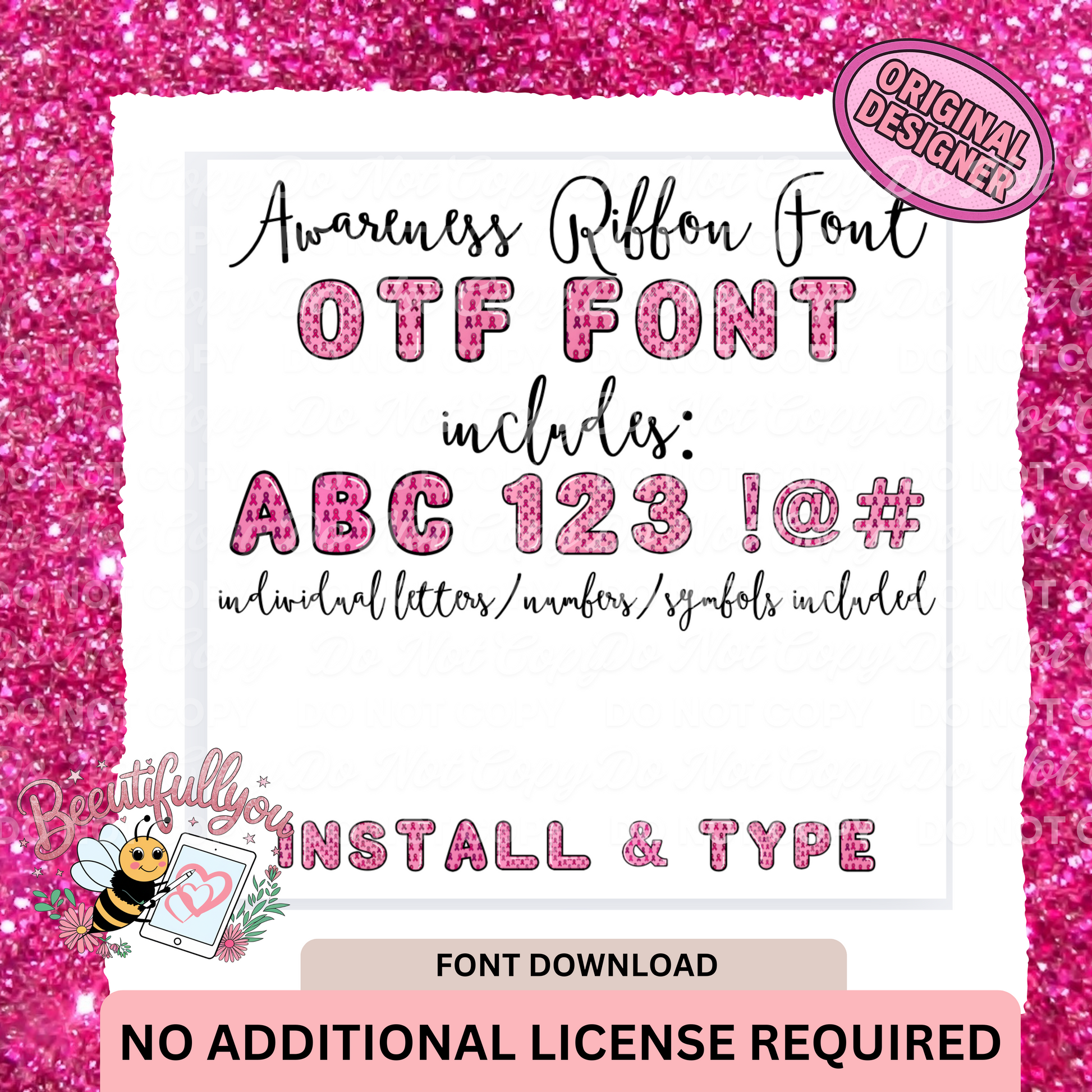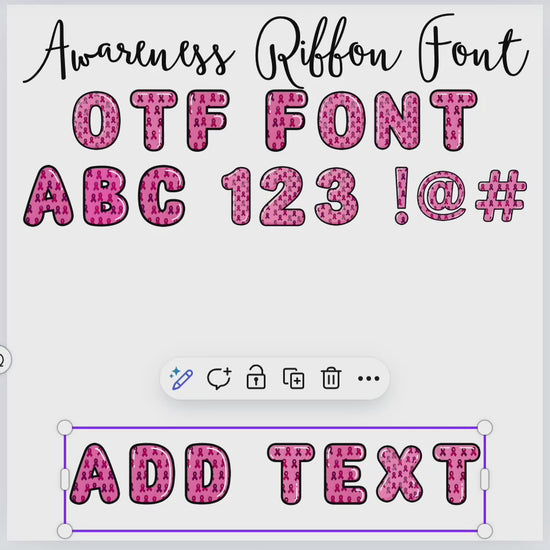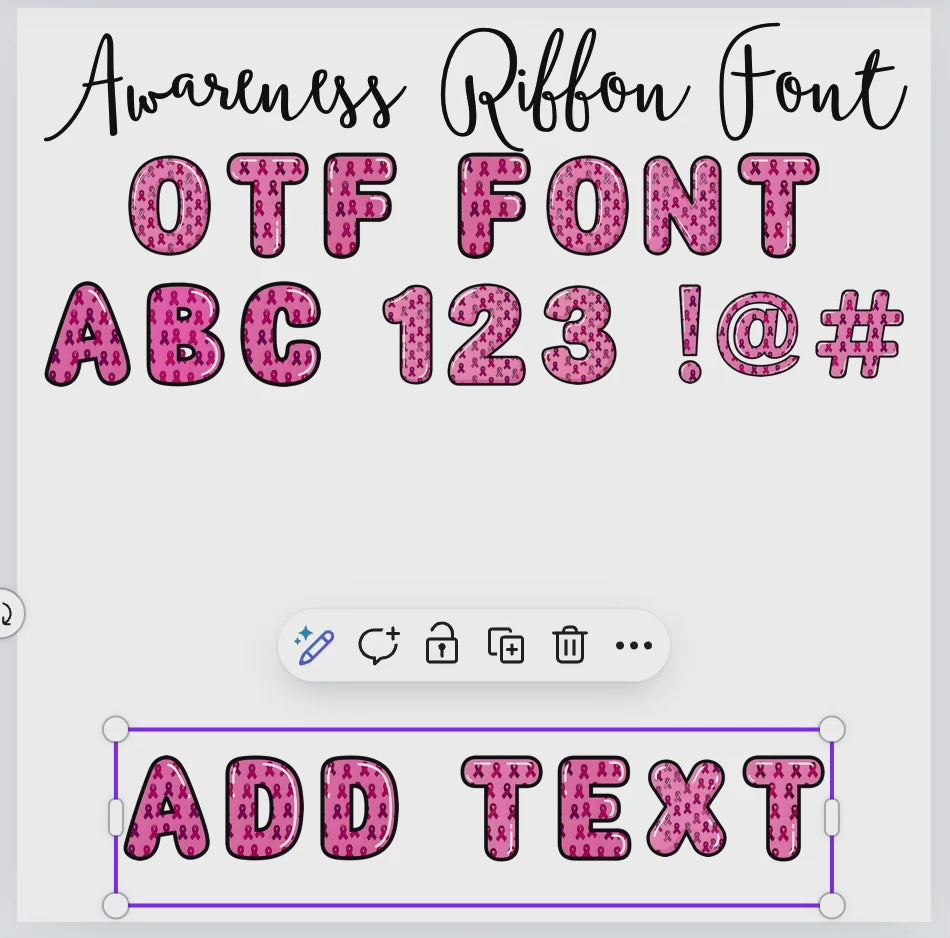
This Awareness Ribbon OTF Font is perfect for creating designs that support awareness campaigns and causes. 🎀 Just download, install, and start typing!
Full set of uppercase letters, numbers, and symbols
Fun awareness ribbon fill style